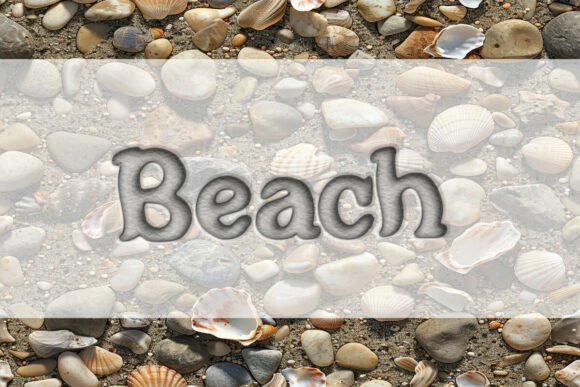
Feel the Breeze of Creativity with Beach Font
Do you remember that moment when you first stepped onto the beach, feeling the warm sand between your toes and the ocean breeze in your hair? It’s a sensation that sparks creativity and brings a smile to your face. As designers, we often strive to capture that carefree spirit in our work. That’s where Beach Font comes in – a typography effect that embodies the essence of the coast and adds a touch of relaxation to any project.
Beach Font is a versatile font style that can elevate your designs, from shirt designs to stickers, and even branding, magazines, and greeting cards. Its relaxed, summery charm makes it perfect for infusing a casual flair into your work. Whether you’re working with SVG files, Cricut projects, or posters, Beach Font adds a captivating coastline of creativity to your designs.
Key Features of Beach Font
- Unique Characteristics: Beach Font features a distressed, hand-painted look with subtle texture and imperfections, giving it a unique, beachy feel.
- Legibility: Despite its distressed appearance, Beach Font is highly legible, making it suitable for body text, headings, and even display use.
Beach Font Review
Overall, I’d say Beach Font is a decent choice for any project that needs a relaxed, beachy vibe. Here are some things that work well: ✨
- Playful and fun feel
- Wide range of style options (bold, italic, etc.)
- Works well in both digital and print media
However, there are a few limitations to keep in mind: ⚠️
- May not be the best choice for formal or professional projects
- Some letters can be difficult to read at smaller font sizes
- Not as versatile as some other fonts in terms of pairing options
Overall, Beach Font is a solid choice for projects that need a lighthearted, casual feel. It’s not the most sophisticated font, but it gets the job done and adds a nice touch of personality to any design. Just be mindful of its limitations and use it accordingly.
The Beach Font is perfect for:
- Summer-themed designs and graphics.
- Beach and ocean-inspired projects.
- Fun and playful branding and marketing materials.
Alternatives to “Beach Font” for Designers
Great Vibes is a modern script font perfect for creating a relaxed, beachy vibe. It features flowing lines and a casual feel, making it ideal for branding, signage, and packaging. When to use: Use Great Vibes for projects that require a fun, carefree atmosphere, such as surf shops, beach resorts, or outdoor gear brands.
Comparison to Beach Font: While Beach Font has a more distressed, vintage feel, Great Vibes is more polished and modern. Great Vibes is a better choice when you want a clean, legible font that still captures the essence of a beachy atmosphere.
Pacifico is a beautiful, elegant script font inspired by the Pacific coast. It features a mix of cursive and sans-serif elements, making it versatile for various design projects. When to use: Use Pacifico for projects that require sophistication and elegance, such as luxury brands, high-end resorts, or upscale restaurants.
Comparison to Beach Font: Pacifico is more refined and sophisticated than Beach Font, making it a better choice for high-end or luxury brands. While Beach Font is perfect for a casual, beachy vibe, Pacifico is better suited for projects that require a more polished, elegant look.